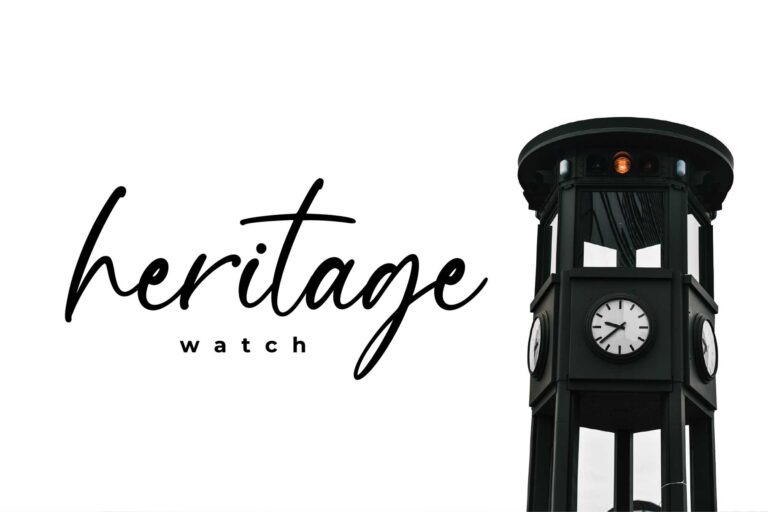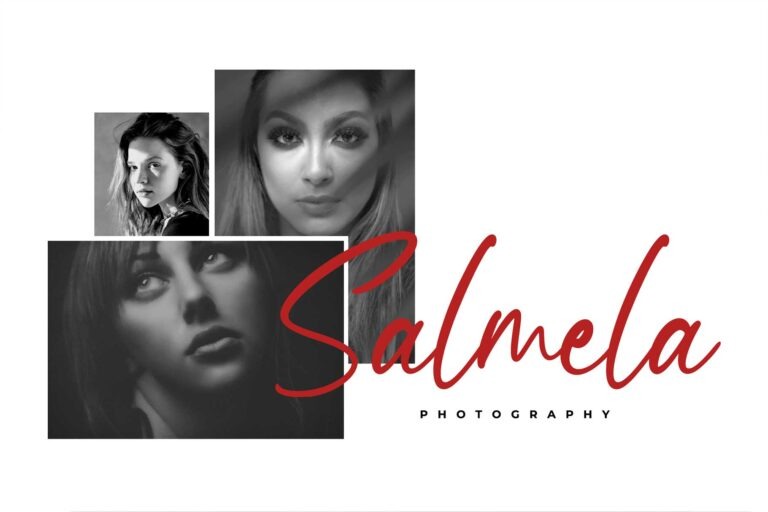
Otamendi Handwritten Font
This is a stylish and incredibly elegant handwritten font manufactured by Pen Culture. It’s perfect for handcrafted brands that are looking for a bold script font with an authentic handwritten feeling.
Use it for blog headers, signatures, elegant branding, wedding stationery, products packaging, instagram quotes, greeting cards, social media posts, and so much more.